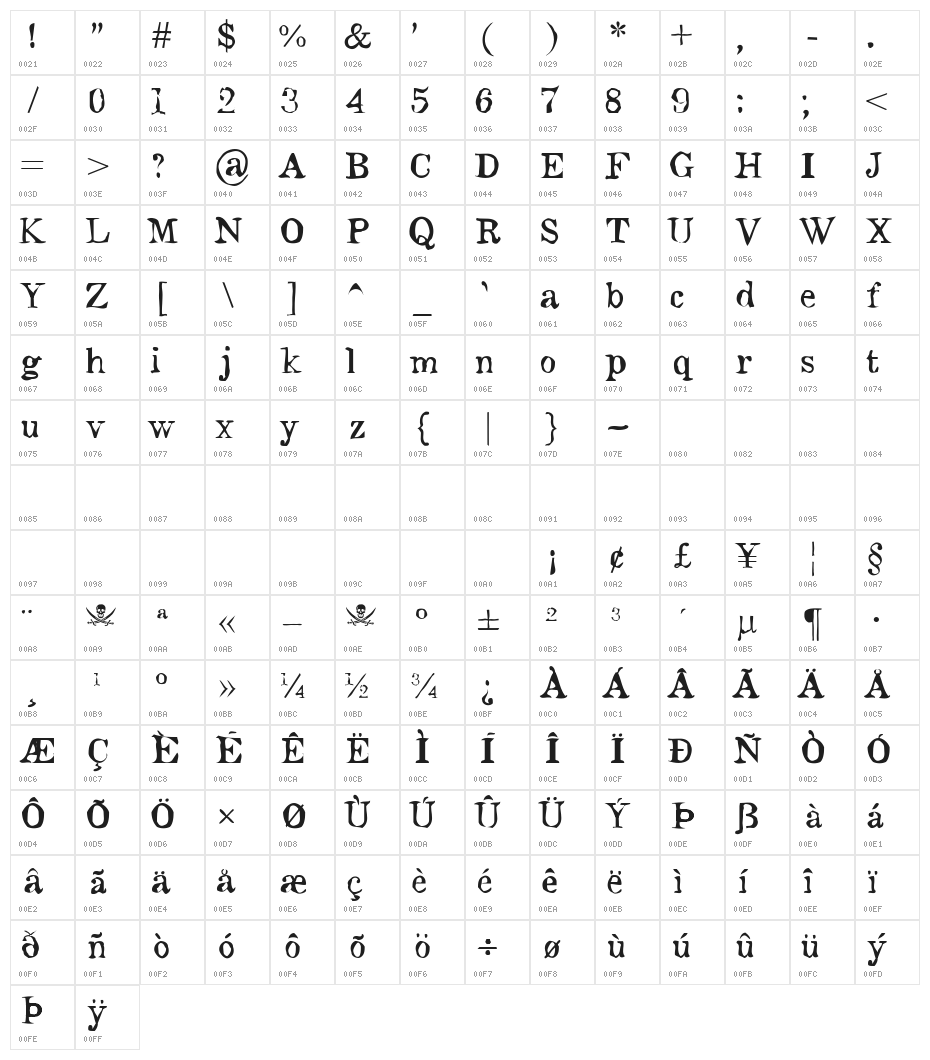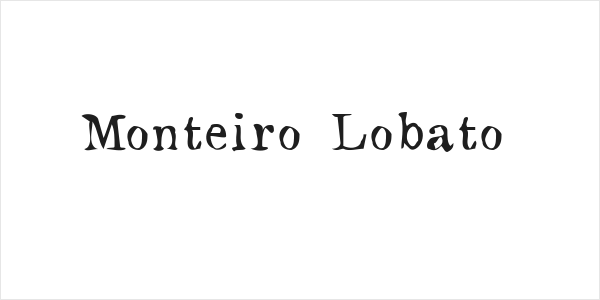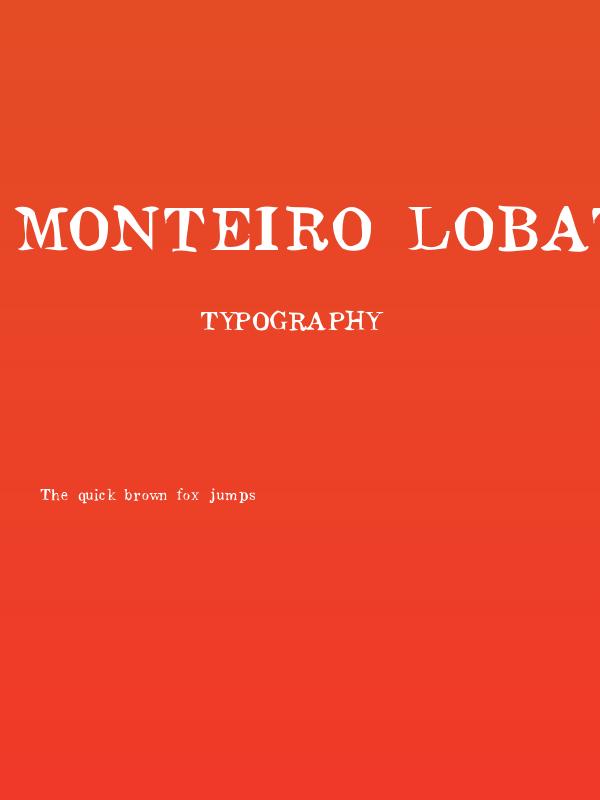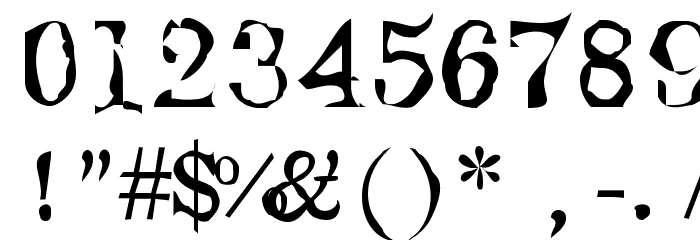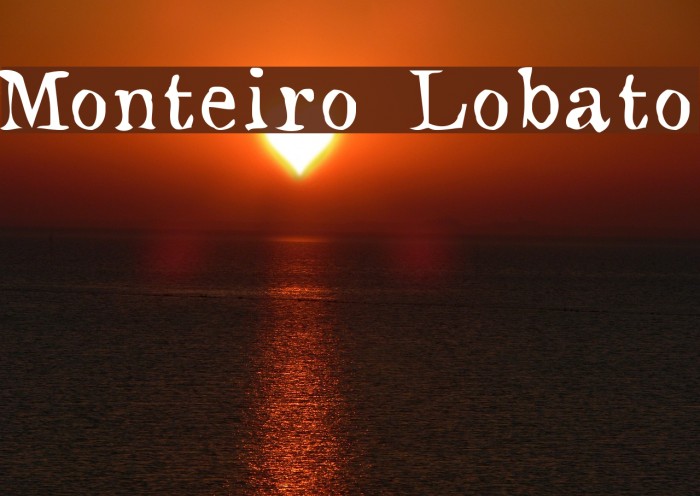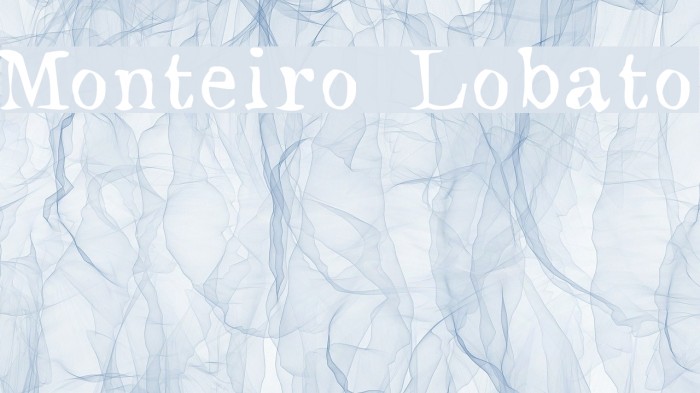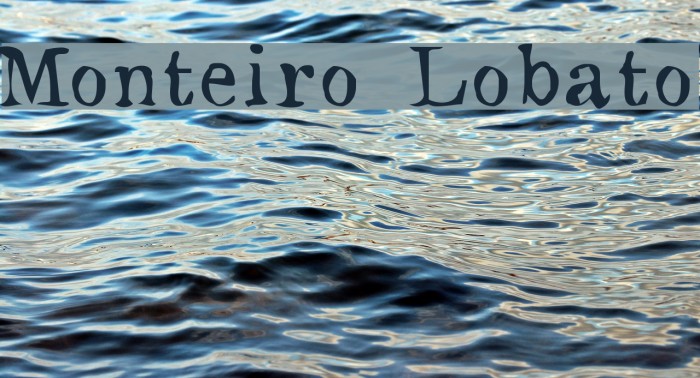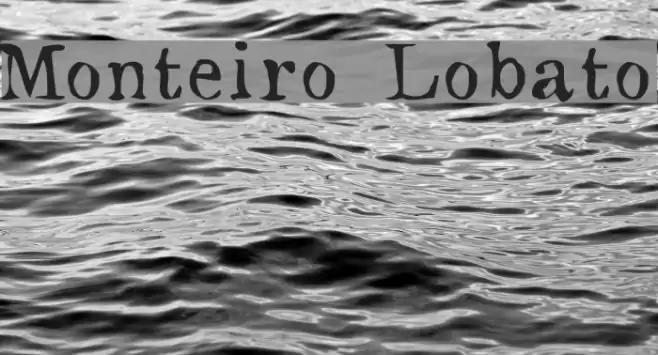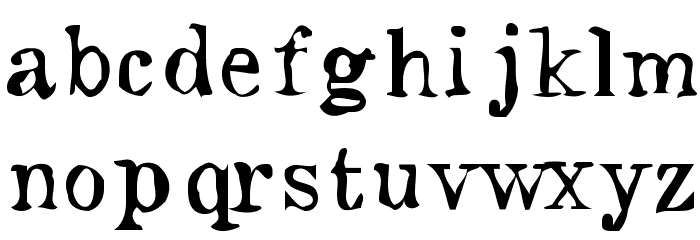
Monteiro Lobato Font
✎ Distorted Eroded
Monteiro Lobato Description
This font exhibits a unique blend of classic and decorative styles, characterized by its bold and dynamic serifs. The uppercase letters are robust and commanding, with a slight curvature that adds a touch of elegance. The lowercase letters maintain a consistent style, offering a harmonious flow that complements the uppercase. Numbers are bold and distinct, ensuring readability while maintaining the overall aesthetic. Special characters are crafted with attention to detail, enhancing the font's versatility. The font's high contrast in stroke thickness gives it a striking appearance, making it suitable for impactful designs.
| Categories | Distorted Eroded |
| Overall Style | Classic, Decorative |
| Proposed Projects | Ideal for book covers, posters, branding, and any project requiring a classic yet bold statement. |